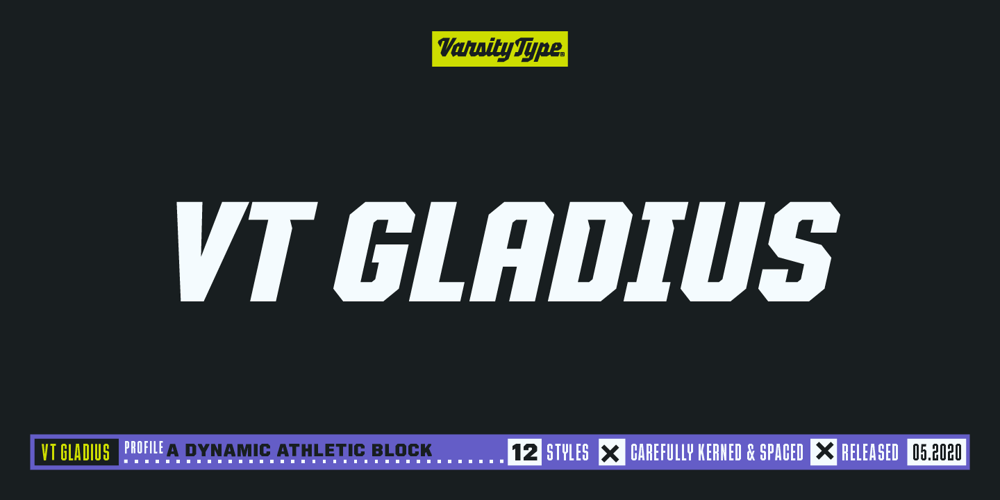
VTF Gladius
VTF Gladius font
VTF Gladius Font Family was designed by CJ Zilligen and published by VarsityType. VTF Gladius contains 12 styles and family package options. This dynamic athletic block has the need for speed.VT Gladius is a display typeface loaded with energy and ready to take off. Each letterform is built on a system of angles that generate a distinct rhythm, drawing the eye through the shape, making every word feel more dynamic. Further reinforcing this are the slightly thicker baseline-adjacent horizontal stems — alluding to the ink-pooling that lower strokes have in traditional penmanship — creating a “bounce” that gives each letter that much more personality. For further customization, the “Disable Speed Cuts” OpenType feature and discretionary ligatures serve as another fine-tuning tool. With five weights, a stencil version, and oblique styles for each, this 12-font family is ready to kick things in to another gear.